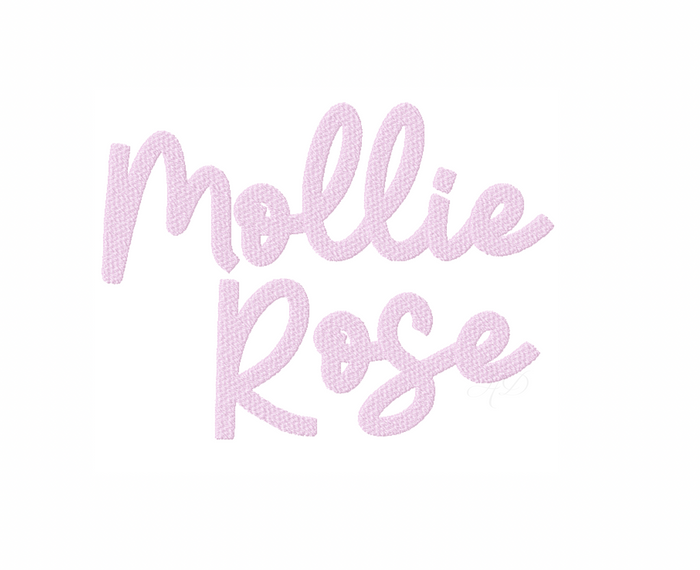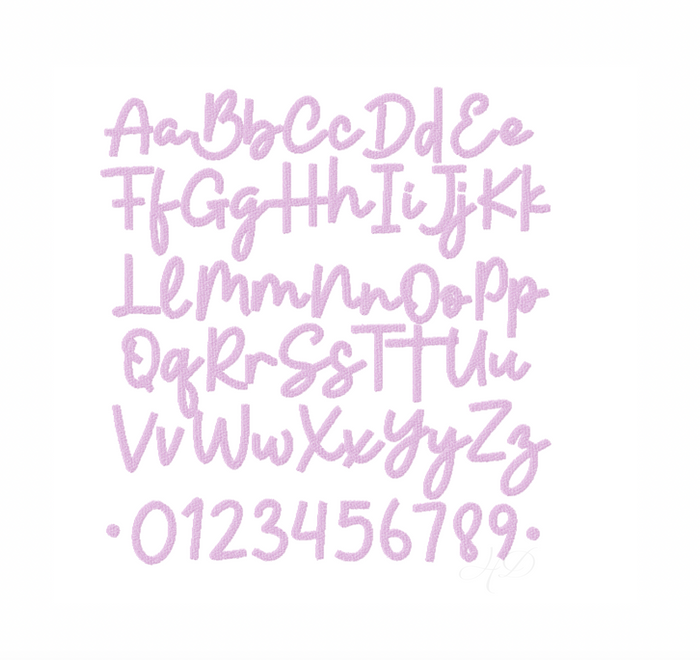
Large Mollie Rose Embroidery Font Package
Discover the Large Mollie Rose Embroidery Font Package, an ideal addition for crafters and DIY enthusiasts. This two-color satin stitch embroidery font includes uppercase letters A-Z and numbers 0-9, along with a charming accent dot.